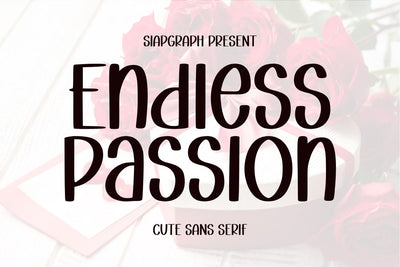
Endless Passion - Valentine Font
Endless Passion is a fun and playful sans serif font. cute and fun style. This font is very fun with natural strokes and touches. This font is perfect for Valentine's celebrations, it can be used for Valentine's greeting cards, Valentine's necklaces, Valentine's gifts, Valentine's t-shirts, and other Valentine's designs. The font is also suitable for journals, KDP, notebooks, memos, planners, teaching materials, Cricut, silhouettes, sublimation, nackles, key chains, women's clothing, and other creative ideas. Apart from that, this font is also suitable for funky floral designs, trump designs, thanksgiving designs, laser designs, funky designs, christmas svg designs, march designs, patriotic great dane designs, christmas fonts, santa designs. Whatever the topic, this font will be a wonderful asset to your font library, as it has the potential to enhance any creation.